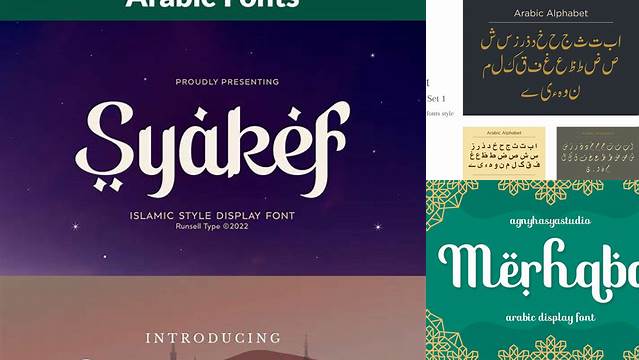
Cool Arabic Text Fonts: Styles & Generators
Hey guys! Ever wondered how to make your text look super cool, especially in Arabic? Well, you've come to the right place! We're diving deep into the world of cool Arabic text fonts, exploring everything from different styles to generators that make the process a breeze. Whether you're designing a logo, creating social media content, or just want to add some flair to your messages, understanding Arabic fonts is key. So, let's jump in and discover the awesome possibilities!
What are Cool Arabic Fonts?
Cool Arabic fonts are typefaces that add a unique and stylish touch to the Arabic script. Unlike standard fonts, these fonts often incorporate artistic elements, intricate designs, and modern aesthetics. They can range from bold and striking to elegant and flowing, offering a wide variety of options for different design needs. When we talk about cool Arabic text fonts, we're essentially looking at fonts that go beyond the traditional, bringing personality and creativity to the written word. Itβs not just about readability; itβs about making a statement and capturing attention. For instance, think about the difference between a basic Times New Roman and a funky handwritten font β thatβs the kind of distinction we're exploring here, but in the context of Arabic script. These fonts can be used in various applications, from digital designs like websites and social media graphics to print materials like posters and books. The key is to choose a font that not only looks appealing but also fits the overall theme and message of your project. With the right cool Arabic text fonts, you can elevate your design and create a lasting impression on your audience. So, keep exploring, and youβll find the perfect font that speaks to your creative vision!
Different Styles of Cool Arabic Fonts
When it comes to cool Arabic fonts, the variety is truly impressive. We're not just talking about a few minor tweaks here and there; we're talking about a spectrum of styles that can completely transform the look and feel of your text. From the bold and modern to the elegantly traditional, there's a cool Arabic text font style for every project and aesthetic. Let's dive into some of the most popular and distinctive styles out there. First up, we have the geometric styles, characterized by their clean lines, sharp angles, and minimalist design. These fonts often feel contemporary and are perfect for projects that need a sleek, modern touch. Then there are the calligraphy-inspired fonts, which mimic the beautiful, flowing strokes of traditional Arabic calligraphy. These fonts can add a touch of elegance and sophistication to any design. Next, we have the decorative fonts, which are all about flair and embellishment. These fonts often incorporate intricate details, artistic flourishes, and unique shapes, making them ideal for eye-catching headlines and titles. And let's not forget about the handwritten styles, which bring a personal and informal touch to the text. These fonts can make your message feel more approachable and authentic. Whether you're working on a website, a poster, or a social media post, understanding the different styles of cool Arabic text fonts is the first step to creating stunning visuals. So, keep experimenting and find the styles that resonate with your creative vision!
Modern Cool Arabic Fonts
Modern cool Arabic fonts are all about embracing contemporary design trends while staying true to the essence of the Arabic script. These fonts often feature clean lines, geometric shapes, and a minimalist aesthetic, making them perfect for projects that need a fresh, up-to-date look. When you're aiming for a sleek and stylish design, modern cool Arabic text fonts are your go-to choice. They blend the traditional beauty of Arabic calligraphy with the simplicity and clarity of modern typography. This fusion results in fonts that are not only visually appealing but also highly legible, ensuring your message is both beautiful and clear. One of the key characteristics of modern Arabic fonts is their versatility. They can be used in a wide range of applications, from digital designs like websites and apps to print materials like brochures and posters. Their clean and uncluttered appearance makes them ideal for body text as well as headlines, ensuring a cohesive and professional look across your design. Moreover, modern cool Arabic text fonts often incorporate unique design elements that set them apart from traditional typefaces. This could include unexpected curves, sharp angles, or unconventional spacing, all of which contribute to their distinctive and contemporary feel. If you're looking to give your project a modern edge, exploring these fonts is a must. They offer a perfect balance of tradition and innovation, allowing you to create designs that are both timeless and on-trend. So, dive in and discover the possibilities β you might just find your new favorite typeface!
Traditional Cool Arabic Fonts
Traditional cool Arabic fonts are a nod to the rich history and artistry of Arabic calligraphy. These fonts draw inspiration from classic scripts like Naskh, Thuluth, and Kufic, each with its own unique characteristics and charm. When you want to infuse your design with a sense of heritage and elegance, traditional cool Arabic text fonts are the way to go. They evoke a sense of timeless beauty and sophistication, making them perfect for projects that require a touch of classic flair. One of the defining features of traditional Arabic fonts is their flowing, ornate letterforms. These fonts often incorporate intricate details and embellishments, reflecting the meticulous craftsmanship of traditional calligraphers. They're not just about conveying a message; they're about creating a visual masterpiece. Think of the elaborate strokes and curves in Thuluth, often used for titles and headings, or the clear and balanced forms of Naskh, which is highly readable and suitable for body text. Kufic, with its geometric and angular shapes, brings a sense of strength and formality. Using traditional cool Arabic text fonts can instantly elevate your design, giving it a touch of authenticity and cultural richness. Whether you're working on a historical project, a religious text, or simply want to add a touch of classic elegance to your brand, these fonts provide a perfect solution. They connect the past with the present, allowing you to create designs that are both beautiful and meaningful. So, explore the world of traditional Arabic fonts and discover the timeless beauty they offer!
Calligraphy-Inspired Arabic Fonts
Calligraphy-inspired cool Arabic fonts are where art meets typography. These fonts take their cues from the fluid, graceful strokes of traditional Arabic calligraphy, bringing that same artistic touch to digital and print designs. If you're looking to add a touch of elegance and sophistication, calligraphy-inspired cool Arabic text fonts are your secret weapon. They capture the beauty and rhythm of handcrafted lettering, making your text not just readable but visually stunning. What sets these fonts apart is their ability to mimic the nuances of the calligrapher's hand. From the thick and thin strokes to the delicate curves and swirls, every detail is carefully crafted to evoke the feeling of traditional calligraphy. This gives your text a personal and artistic touch that can't be achieved with standard fonts. Imagine using a font that looks like it was written by a master calligrapher β that's the power of calligraphy-inspired cool Arabic text fonts. These fonts are perfect for a wide range of applications, from invitations and logos to websites and branding materials. They add a touch of luxury and refinement, making your message stand out with style. Whether you're designing a wedding invitation or creating a brand identity, calligraphy-inspired fonts can elevate your project to the next level. So, explore the artistry of these fonts and let them inspire your creative vision!
Geometric Arabic Fonts
Geometric cool Arabic fonts are all about clean lines, precise angles, and a modern aesthetic. These fonts embrace simplicity and clarity, making them perfect for projects that require a contemporary and minimalist touch. When you're aiming for a sleek and structured look, geometric cool Arabic text fonts are your go-to choice. They bring a sense of order and sophistication to your design, ensuring your message is both visually appealing and easy to read. What makes geometric Arabic fonts so distinctive is their emphasis on shapes and forms. The letters are often constructed from basic geometric elements like circles, squares, and triangles, resulting in a clean and consistent appearance. This gives your text a sense of balance and harmony, making it visually pleasing to the eye. Think of the strong, angular shapes of Kufic script, which is a classic example of a geometric Arabic font. But modern geometric fonts take this concept even further, incorporating contemporary design trends and innovative techniques. Using geometric cool Arabic text fonts can instantly give your project a modern edge. They're perfect for logos, headlines, and branding materials, where a clean and professional look is essential. Whether you're designing a website or creating a marketing campaign, these fonts will help you make a statement with style. So, explore the world of geometric Arabic fonts and discover the power of simplicity!
Decorative Arabic Fonts
Decorative cool Arabic fonts are the life of the party when it comes to typography. These fonts are all about flair, embellishment, and making a statement. They go beyond the basics, incorporating unique design elements and artistic touches that catch the eye and add personality to your text. If you're looking to create a design that truly stands out, decorative cool Arabic text fonts are your best friend. They're perfect for headlines, posters, and any project where you want to grab attention. What sets these fonts apart is their willingness to break the mold. They often feature intricate details, unexpected shapes, and bold strokes that make them instantly memorable. Think of fonts with swirling serifs, playful ligatures, or even embedded patterns β these are the hallmarks of decorative Arabic fonts. They're not just about conveying a message; they're about creating a visual spectacle. Imagine using a font that's so eye-catching, it becomes a focal point of your design β that's the magic of decorative cool Arabic text fonts. These fonts are perfect for projects that need a touch of whimsy, elegance, or drama. Whether you're designing a movie poster or creating a social media campaign, these fonts will help you make a lasting impression. So, unleash your creativity and explore the world of decorative Arabic fonts β you might just find the perfect font to add that extra sparkle to your design!
Handwritten Arabic Fonts
Handwritten cool Arabic fonts bring a personal and authentic touch to your designs. These fonts mimic the natural flow and imperfections of handwriting, making your text feel more human and approachable. If you want to create a design that's warm, friendly, and a little bit casual, handwritten cool Arabic text fonts are the way to go. They're perfect for projects that need a touch of personality, like invitations, greeting cards, and social media posts. What makes handwritten fonts so special is their ability to connect with your audience on an emotional level. They evoke the feeling of a handwritten note or a personal message, making your text feel more genuine and sincere. Think of the slightly uneven strokes, the subtle variations in letterforms, and the occasional flourish β these are the details that give handwritten fonts their charm. Using handwritten cool Arabic text fonts can instantly make your design feel more inviting and relatable. They're perfect for projects that need a personal touch, like branding materials for small businesses or blog posts that aim to connect with readers on a deeper level. Whether you're designing a thank-you card or creating a website that feels like a friendly conversation, these fonts will help you build a connection with your audience. So, embrace the warmth and authenticity of handwritten Arabic fonts and let your personality shine!
Bold Cool Arabic Fonts
When you need your message to make a strong impact, bold cool Arabic fonts are the answer. These fonts are designed to command attention, with thick strokes and strong letterforms that stand out on the page or screen. If you're looking to create headlines, posters, or any design element that needs to be noticed, bold cool Arabic text fonts are your go-to choice. They're all about making a statement and ensuring your message doesn't get lost in the shuffle. What makes bold fonts so effective is their sheer presence. The heavier weight of the letters gives them a sense of authority and importance, drawing the eye and making your text instantly readable. Think of the classic bold fonts you see in newspaper headlines or on billboards β they're designed to grab your attention and deliver a message quickly and effectively. Using bold cool Arabic text fonts can instantly add emphasis to your design. They're perfect for highlighting key information, creating a sense of urgency, or simply making your text look more visually appealing. Whether you're designing a logo or creating a marketing campaign, these fonts will help you make a bold impression. So, unleash the power of bold Arabic fonts and let your message be heard!
Cool Arabic Fonts for Mobile Devices
With the majority of internet users accessing content on mobile devices, optimizing cool Arabic fonts for mobile viewing is essential. Typography that looks great on a desktop may not translate well to smaller screens, so it's important to choose fonts that are legible and visually appealing on mobile devices. Effective cool Arabic text fonts for mobile enhance user experience. When selecting Arabic fonts for mobile, prioritize readability and scalability. Choose fonts that are easy to read in small sizes and on high-resolution screens. Avoid overly decorative fonts that can become cluttered and illegible on mobile devices. Font size and line height are also crucial factors. Use larger font sizes and generous line heights to ensure your text is comfortable to read on small screens. Test your font choices on different mobile devices and screen sizes to see how they look in various contexts. Web fonts are a great option for mobile design, as they are optimized for performance and scalability. Use font loading techniques to ensure your fonts load quickly on mobile devices, minimizing delays and improving the user experience. Consider using a responsive typography approach, which allows your fonts to adapt to different screen sizes and orientations. With careful planning and font selection, cool Arabic text fonts can create a seamless and enjoyable reading experience on mobile devices. Optimizing for mobile ensures your content is accessible and visually appealing to a wider audience.